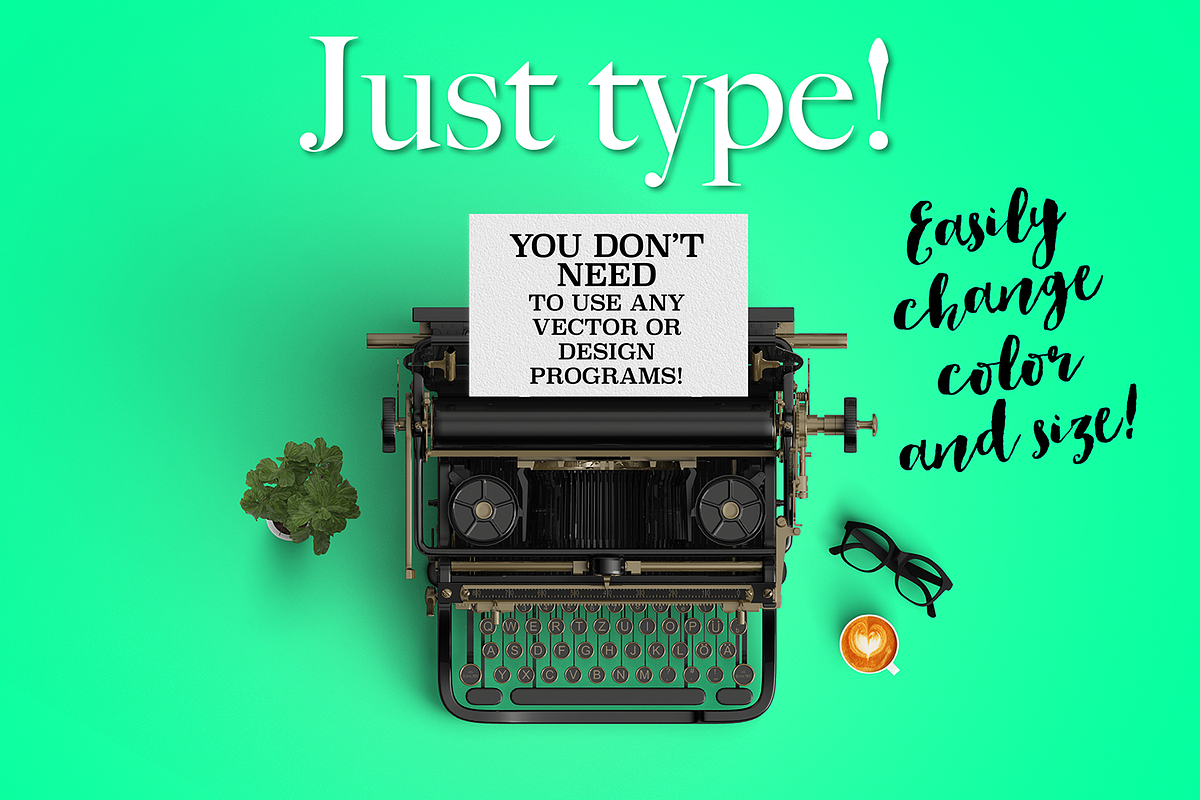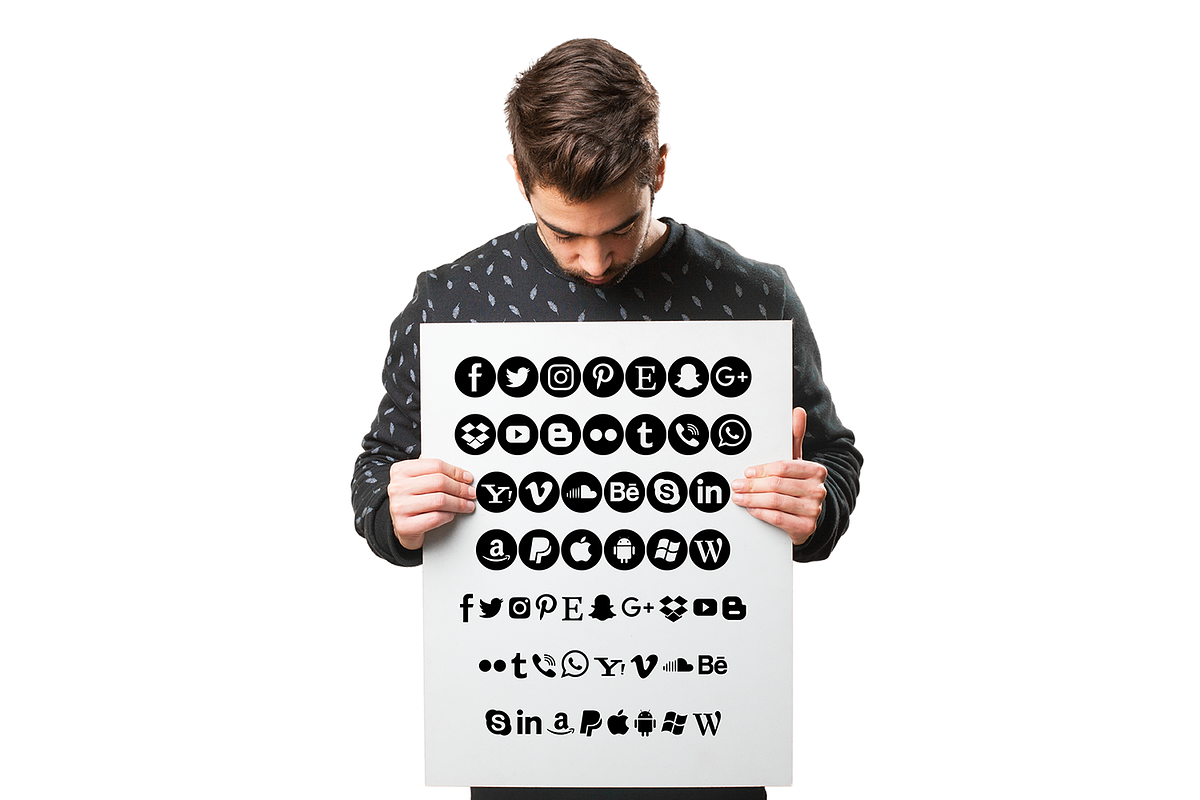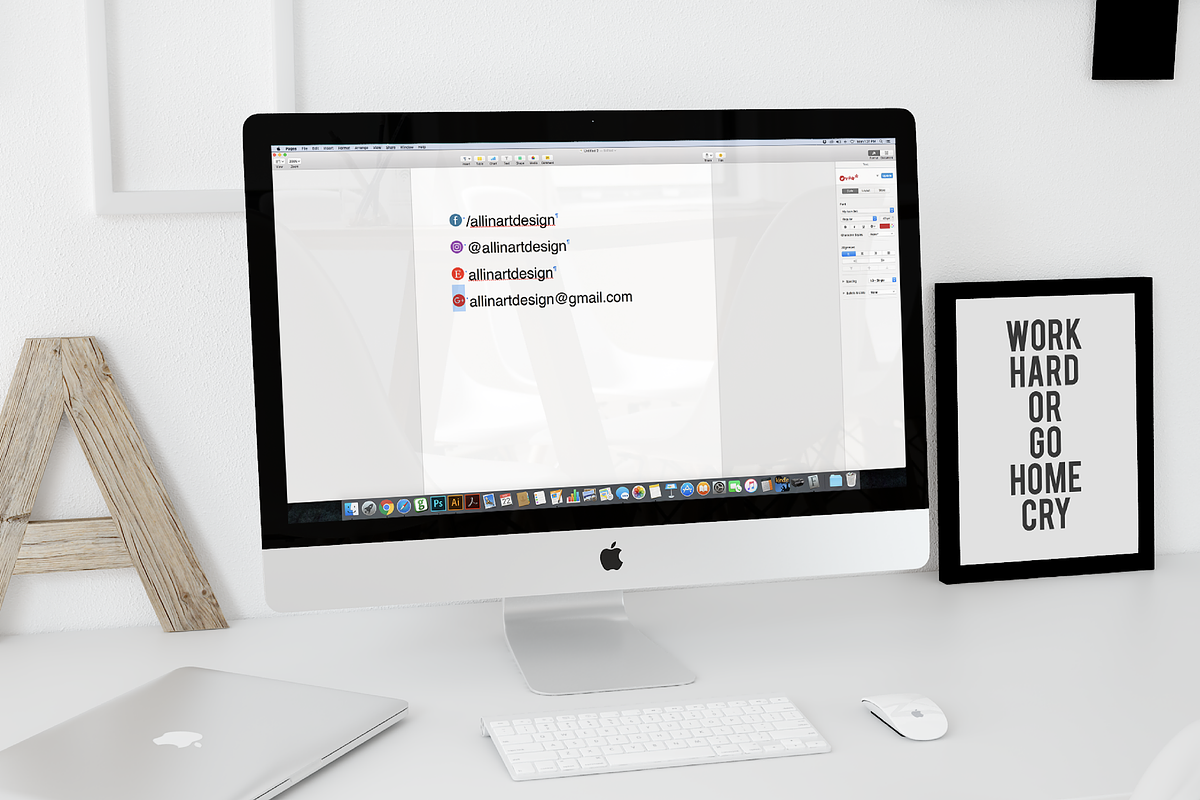
My Icon Set Font
A FONT TO MAKE YOUR LIFE EASIER! Simple Social Media and digital Icons with and without flat circle background. You can change colors, size, and use it in any program. All icons are A-Z letters. Uppercase letters have a circle in the background and lowercase letters don't have any background.
- Uppercase letters have a circle in the background and lowercase letters don't have any background.
Why My Icon Set Font is worth a look
My Icon Set Font by Vivi Furlong fits naturally into Branding, posters, packaging, typography.